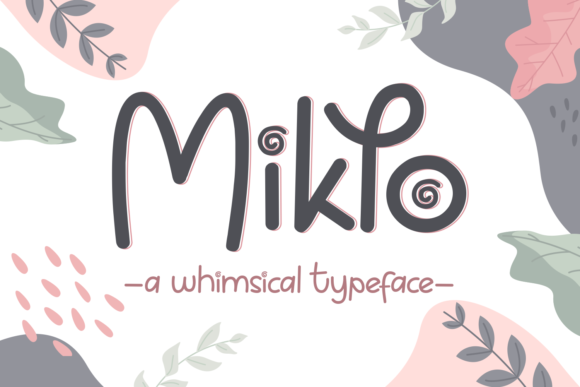
Unlock the magic of words with Miklo Font! Embark on a creative journey with this captivating script font, inspired by the charm of childhood and crafted by the renowned Dani (7NTypes). Miklo's whimsical curves and authentic strokes will infuse your designs with a touch of playfulness.
Immerse yourself in the boundless possibilities of Miklo Font. Its charming character makes it the ideal choice for children's activities and educational projects, where imagination knows no bounds. Allow Miklo's enchanting letters to ignite creativity in every stroke, transforming ordinary words into extraordinary expressions.
But Miklo's versatility extends far beyond the classroom. Its whimsical nature adds a touch of lighthearted elegance to invitations, greeting cards, and social media posts. Miklo's unique charm will captivate your audience, leaving a lasting impression.
Experience the transformative power of Miklo Font today. Let its enchanting curves transport you to a world of imagination and creativity. Unleash your inner child and let the playful spirit of Miklo Font guide your designs towards extraordinary heights!